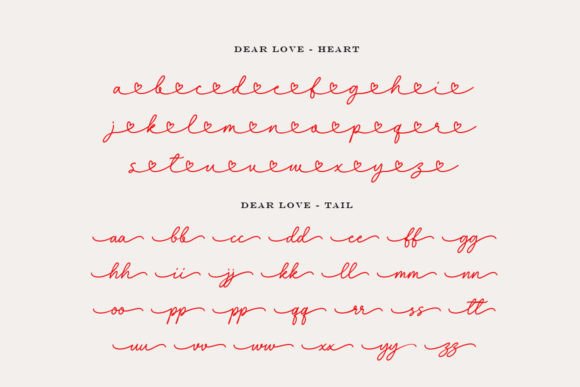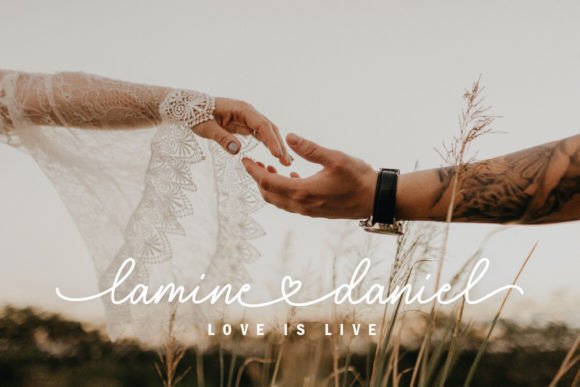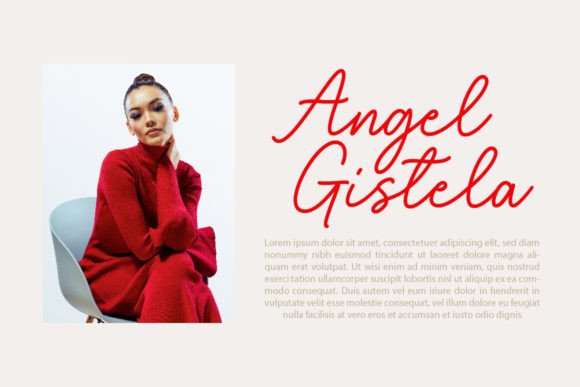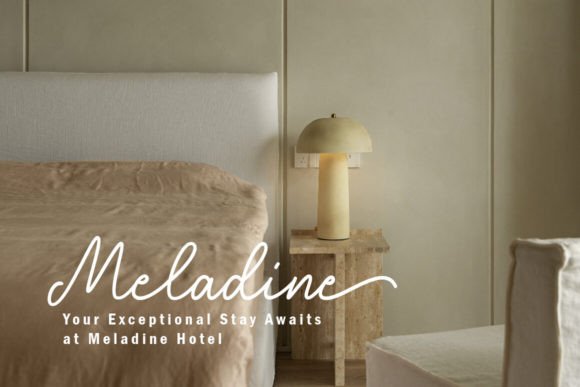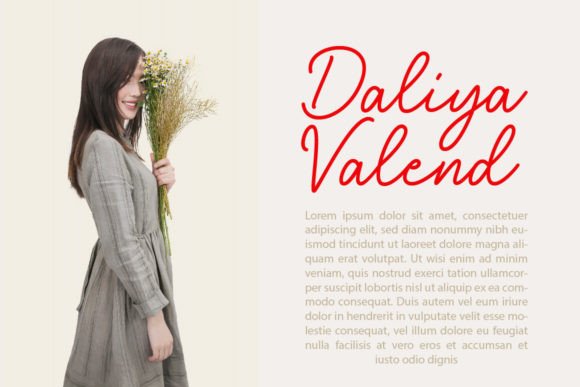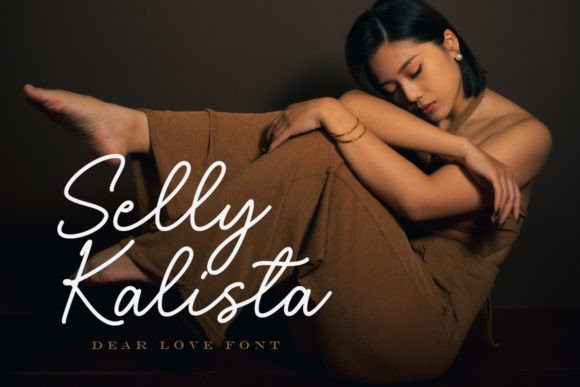
Discover the Charm of Dear Love Font: A Beautiful Handwritten Script Font
Are you a designer or crafter looking for a font that exudes elegance and romance? Look no further than Dear Love Font, a stunning handwritten script font that is sure to capture your heart. With its intriguing tails and heart-shaped connecting details, this font is perfect for a variety of creative projects.
What Makes Dear Love Font So Special?
Dear Love Font is a beautiful handwritten script font that stands out from the crowd with its unique and elegant design. The font features intriguing tails at the start and end of each stroke, giving it a sense of movement and fluidity. But what really sets it apart is its distinctive heart-shaped connecting tail, which adds a romantic and attractive touch to any text.
The delicate elegance of Dear Love Font will amaze and inspire you, making it perfect for a wide range of creative projects, from wedding invitations and romantic getaways to fashion branding and lifestyle blogs. Whether you’re a professional designer or a crafty DIY enthusiast, this font is sure to become a favorite in your collection.
Key Features of Dear Love Font
- Handwritten script font: Dear Love Font is a beautiful handwritten script font that mimics the look and feel of handwritten text.
- Intriguing tails: The font features intriguing tails at the start and end of each stroke, giving it a sense of movement and fluidity.
- Heart-shaped connecting tail: The distinctive heart-shaped connecting tail adds a romantic and attractive touch to any text.
- Elegant and refined: Dear Love Font exudes elegance and sophistication, making it perfect for high-end branding and design projects.
Uses for Dear Love Font
Dear Love Font is a versatile font that can be used for a wide range of creative projects, including:
- Wedding invitations and stationery: The romantic and elegant design of Dear Love Font makes it perfect for wedding invitations, save-the-date cards, and other wedding stationery.
- Fashion branding and packaging: The font’s elegant and refined design makes it perfect for fashion branding and packaging, adding a touch of sophistication to any product.
- Lifestyle blogs and social media: Dear Love Font is also perfect for lifestyle blogs and social media graphics, adding a personal and elegant touch to any post or graphic.
- DIY crafts and scrapbooking: The font’s whimsical and romantic design makes it perfect for DIY crafts and scrapbooking projects, adding a personal and creative touch to any project.
Tips for Using Dear Love Font
To get the most out of Dear Love Font, here are a few tips to keep in mind:
- Use it sparingly: Dear Love Font is a elegant and refined font, so it’s best to use it sparingly to add a touch of sophistication to your design.
- Pair it with a sans-serif font: Pairing Dear Love Font with a sans-serif font can help to create a beautiful contrast and add visual interest to your design.
- Experiment with colors and textures: Don’t be afraid to experiment with different colors and textures to add depth and interest to your design.
Dear Love Font is a beautiful handwritten script font that exudes elegance and romance. With its intriguing tails and heart-shaped connecting details, this font is perfect for a wide range of creative projects, from wedding invitations and fashion branding to lifestyle blogs and DIY crafts. Whether you’re a professional designer or a crafty DIY enthusiast, Dear Love Font is sure to become a favorite in your collection.